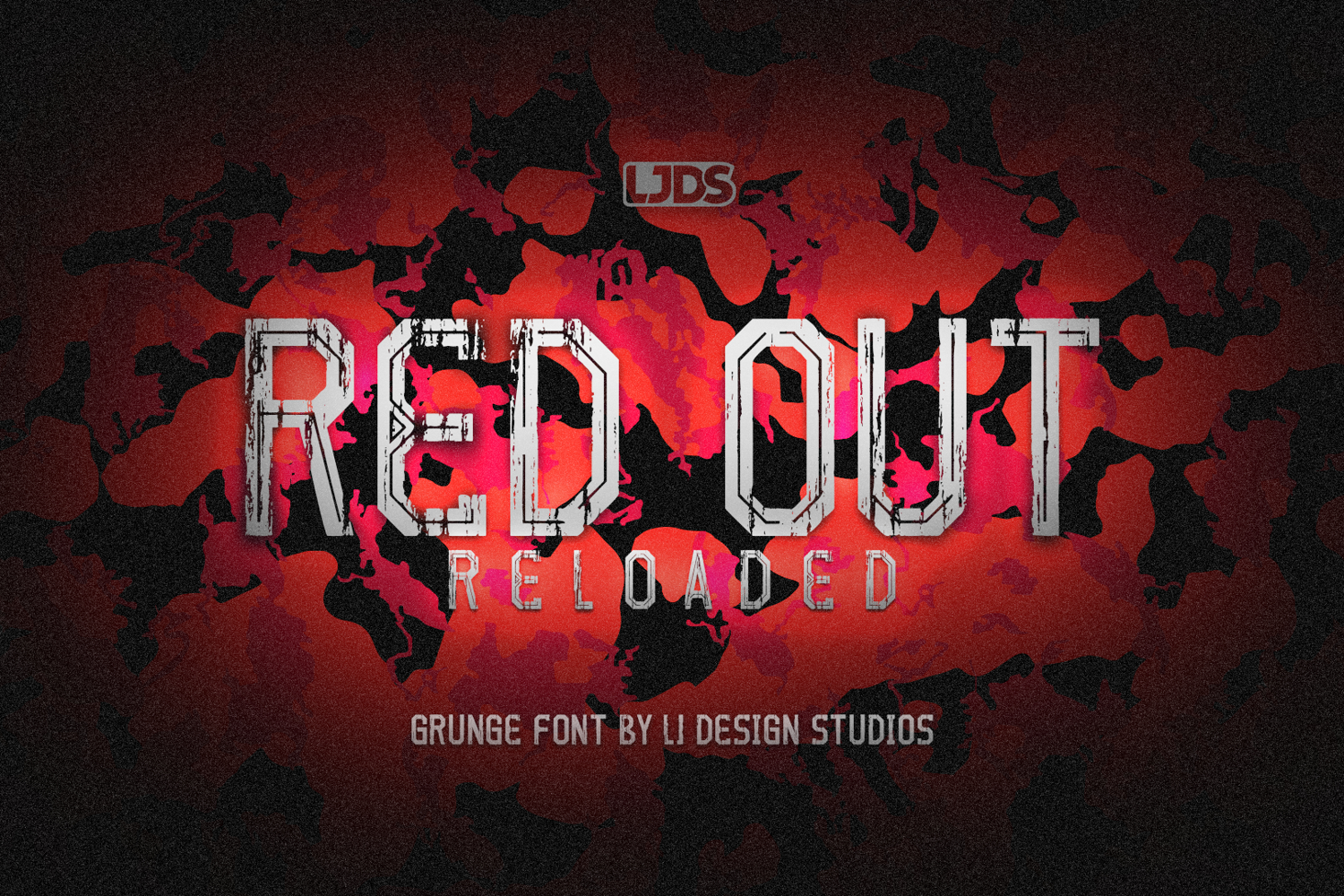
Red out reloaded font
Red out reloaded font is the continuation of the free Red Out font, both designed by LJ Design Studios.
The inspiration for this version is based on galactic arcade video games, with a fun texture full of exploration for what is beyond our skies.